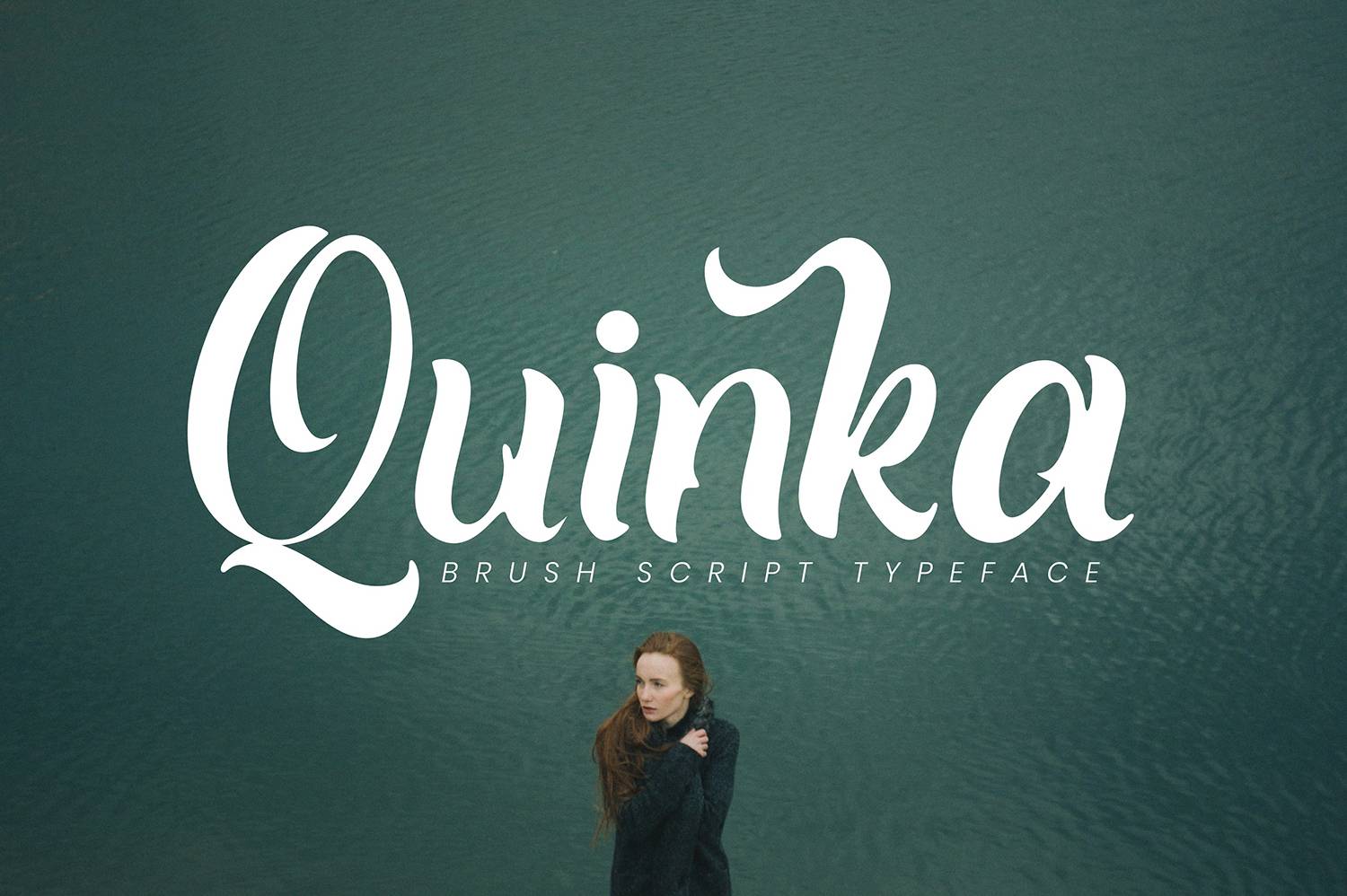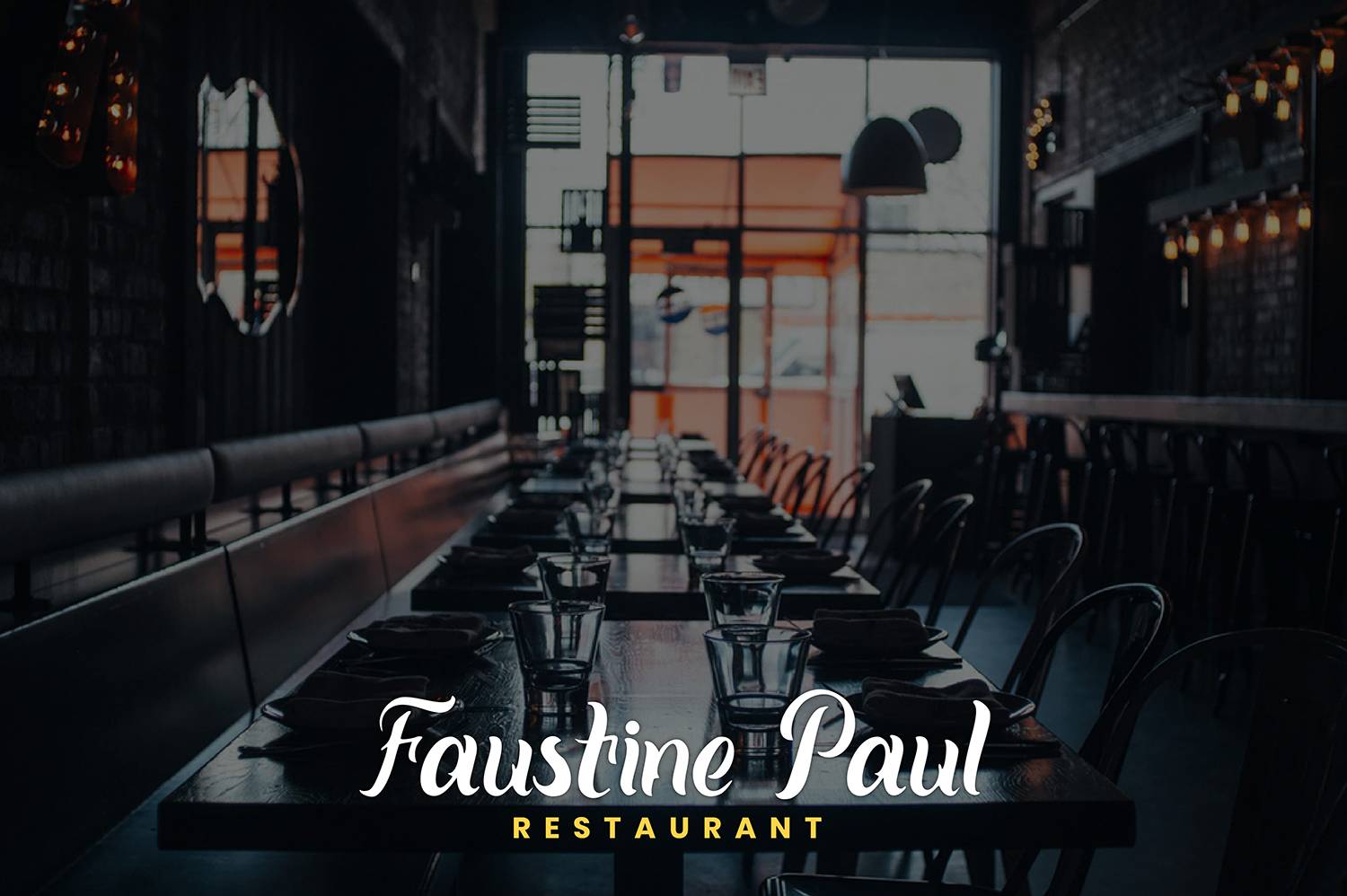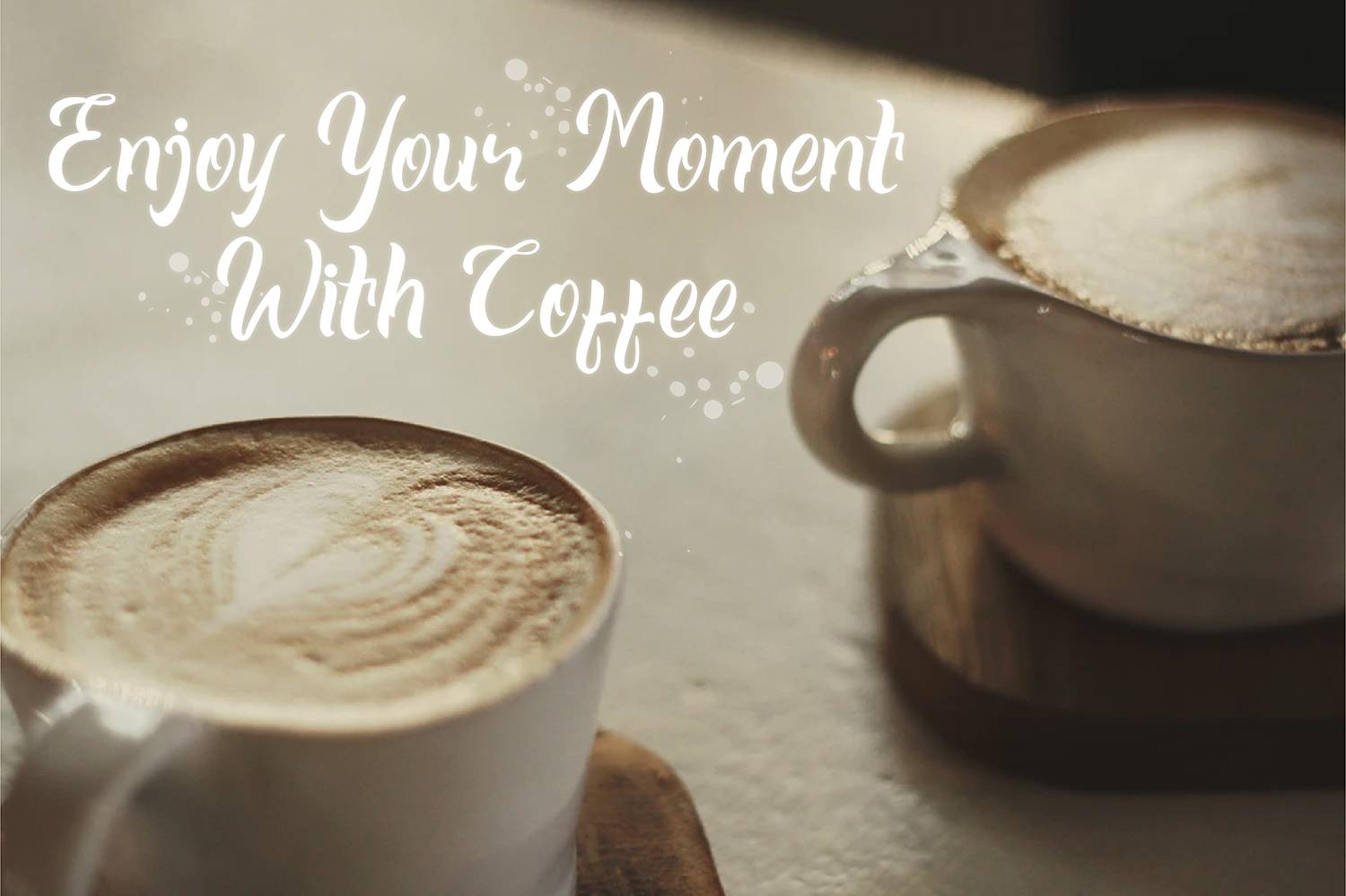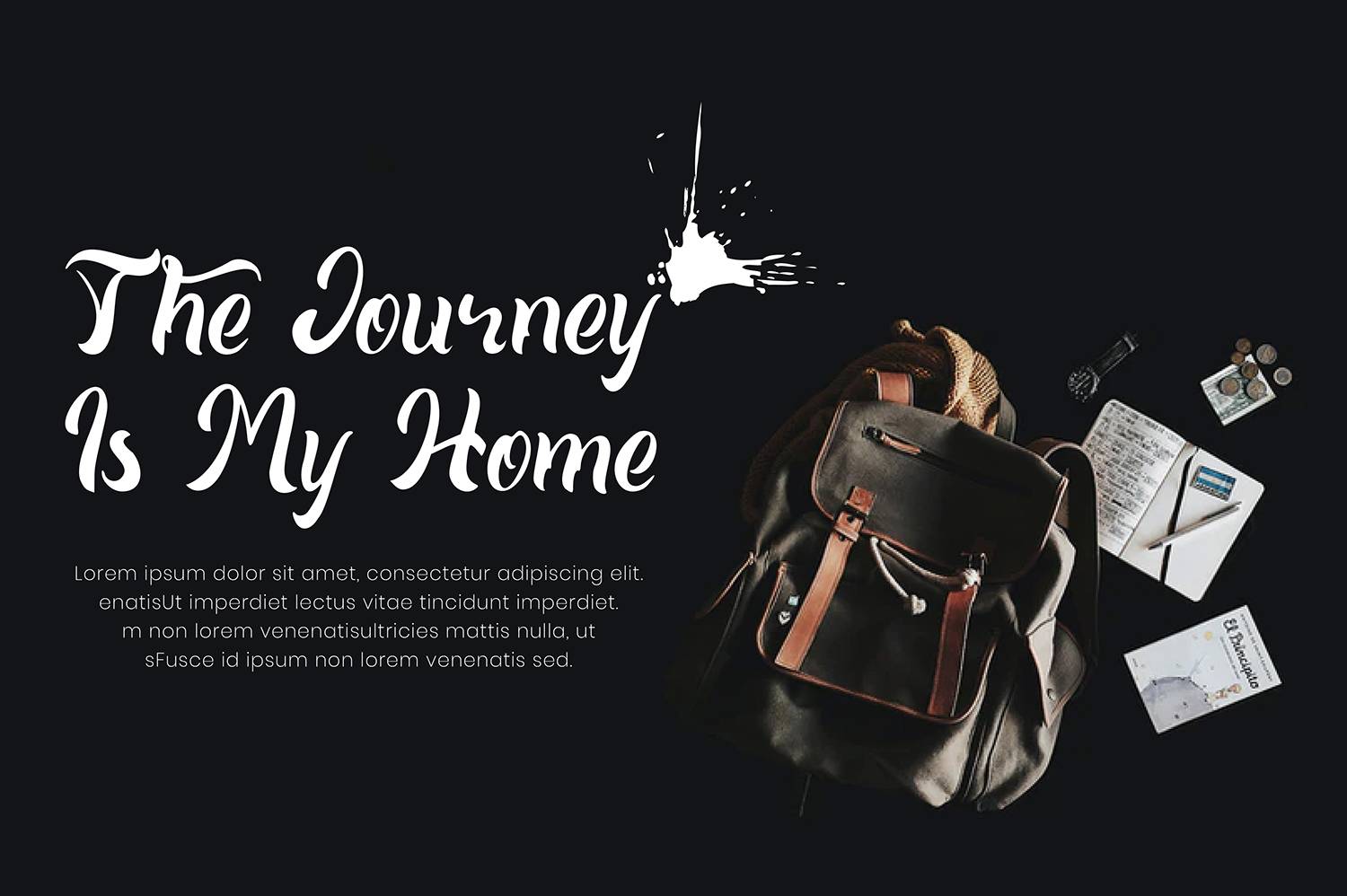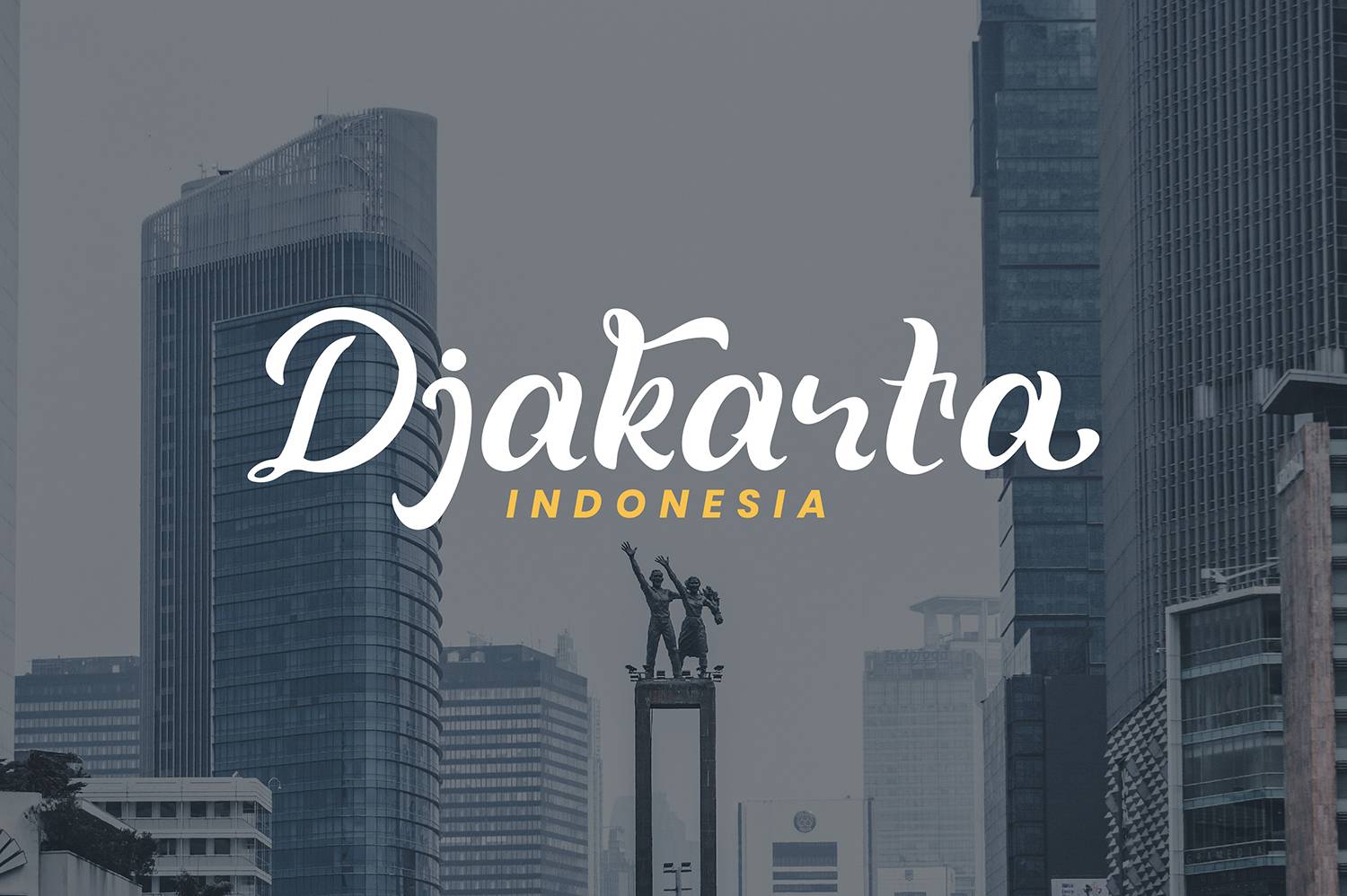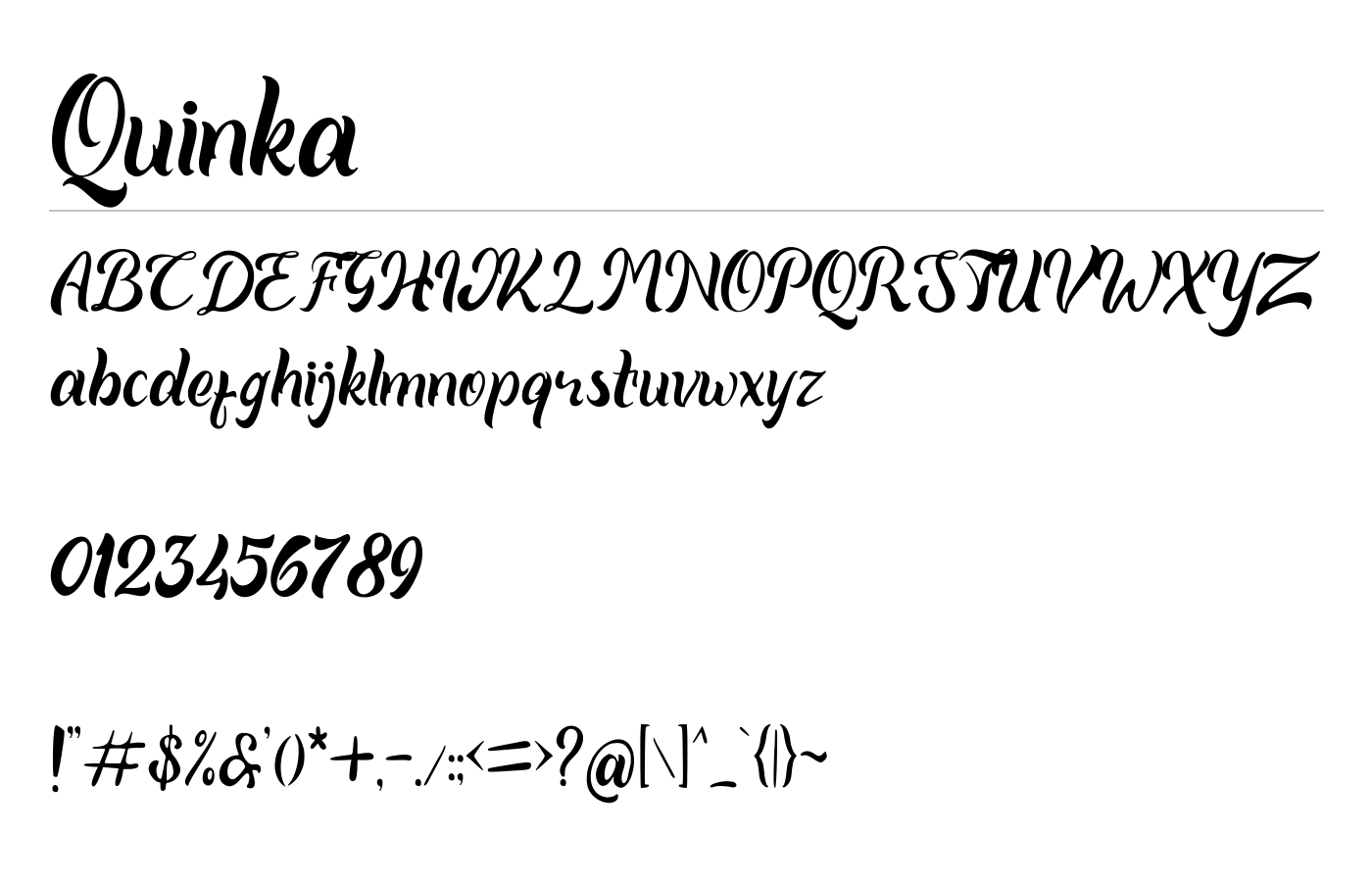
Quinka is a stylish script font with bold, flowing strokes that combine elegance and a vintage charm. Its thick and thin contrasts along with graceful curves make it ideal for fashion branding, logos, and eye-catching headlines where a classic yet dynamic feel is desired. This font brings personality and flair to designs needing a refined, artistic touch.
Quinka Font
About Quinka Font
| Font family | Quinka Font |
| Designer | Abul Almaududi |